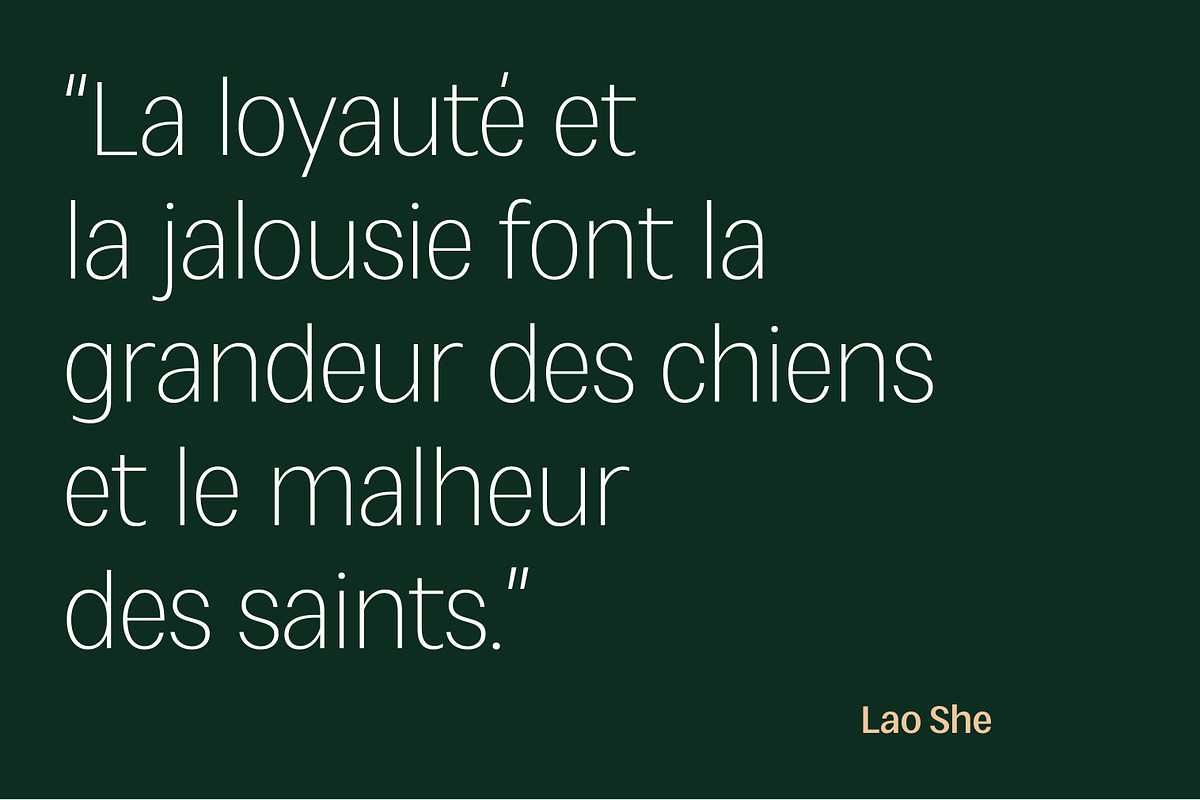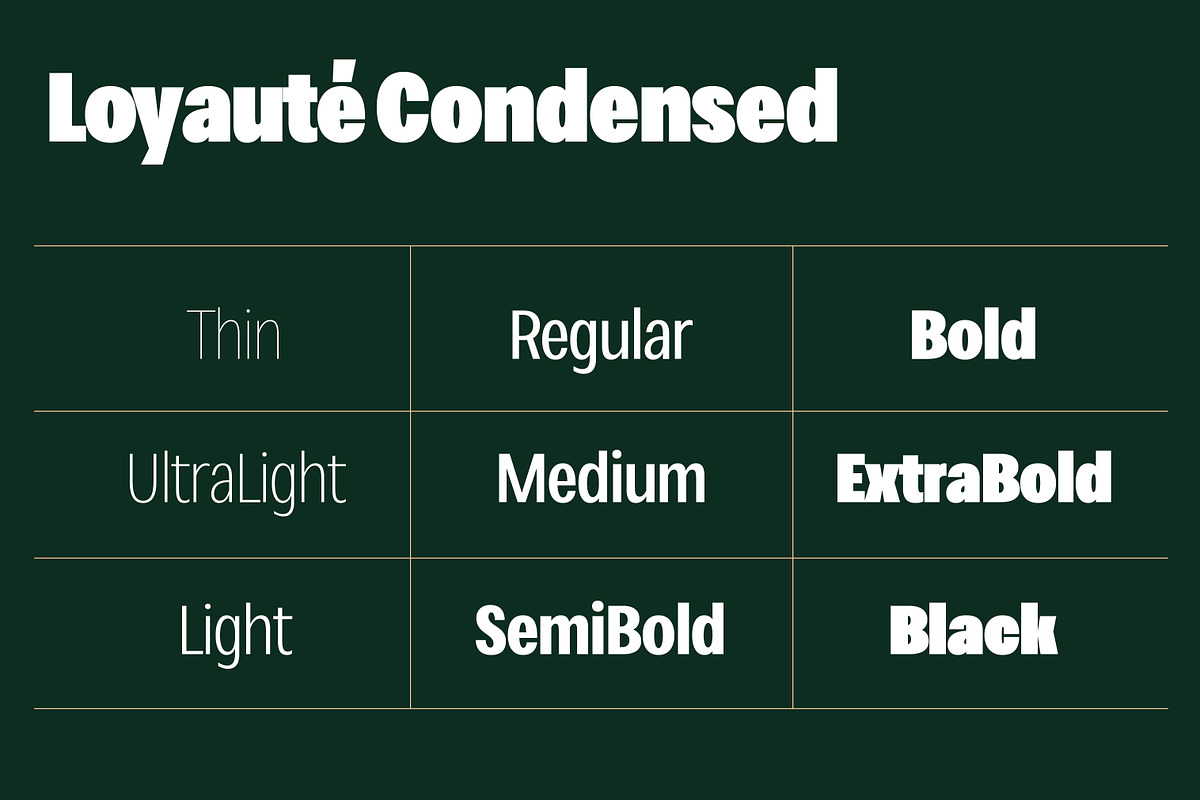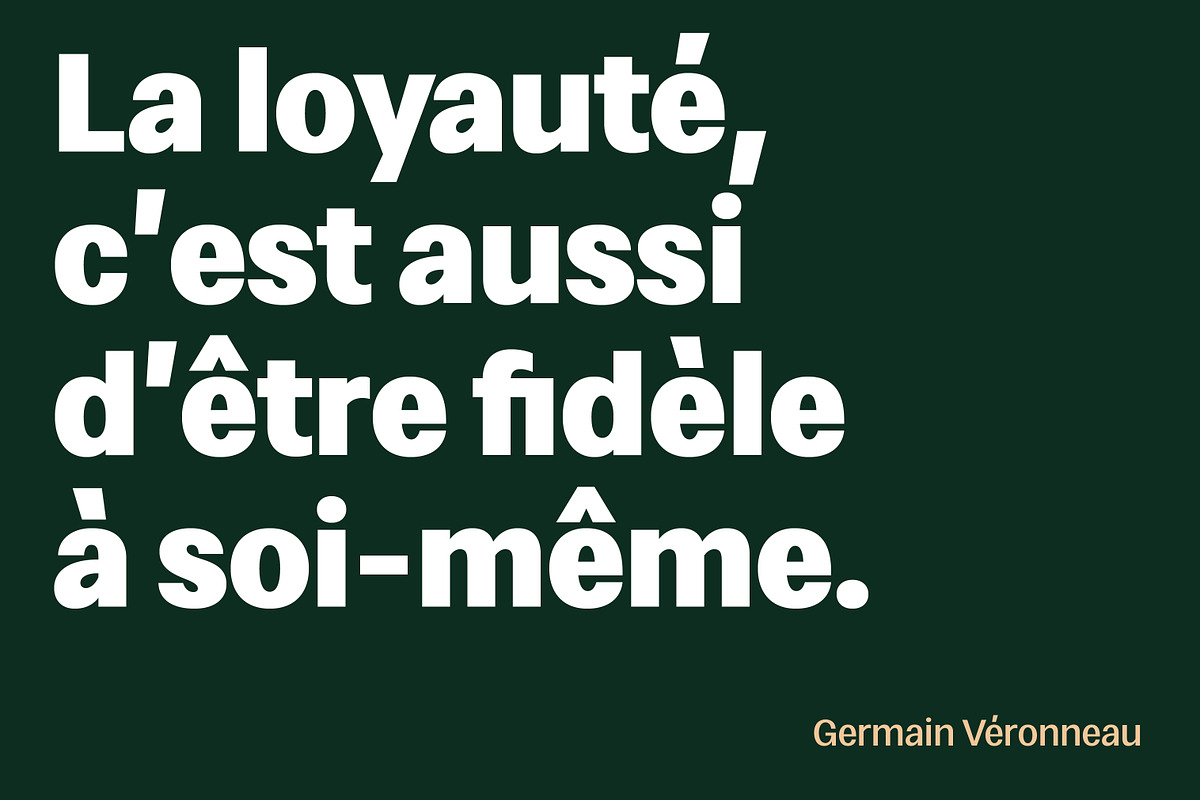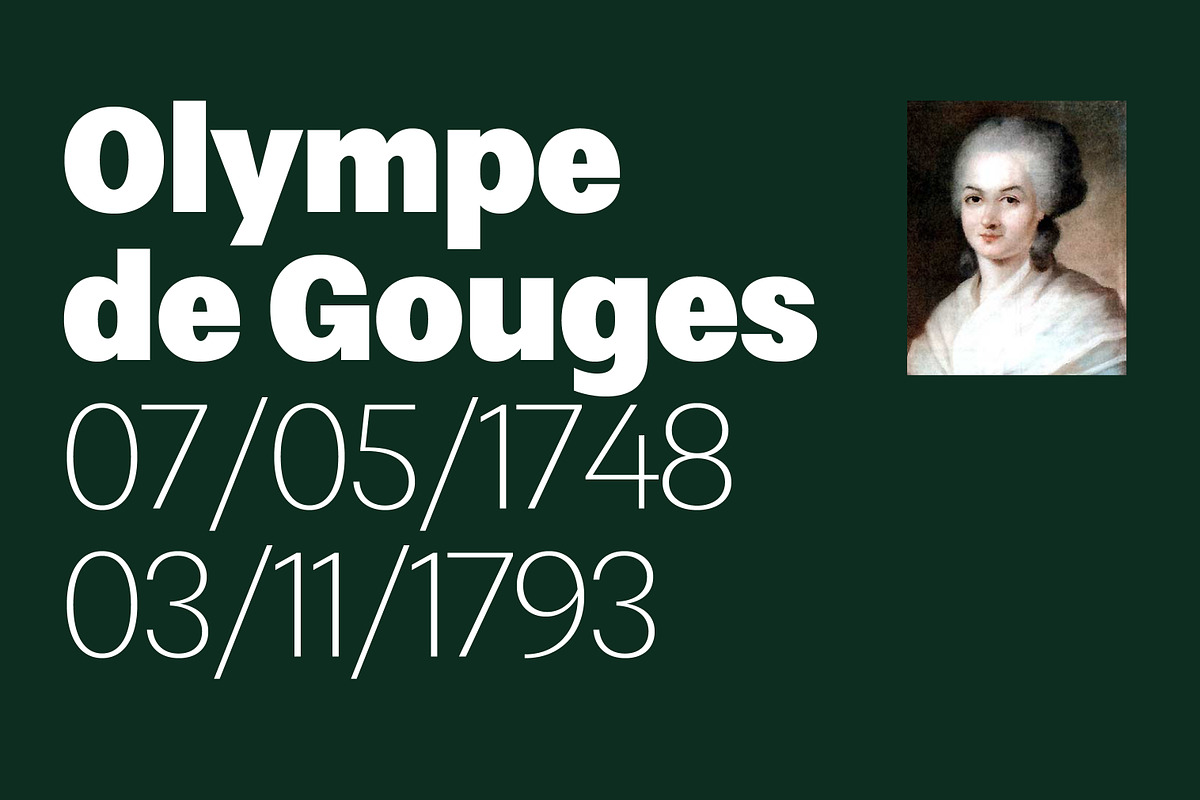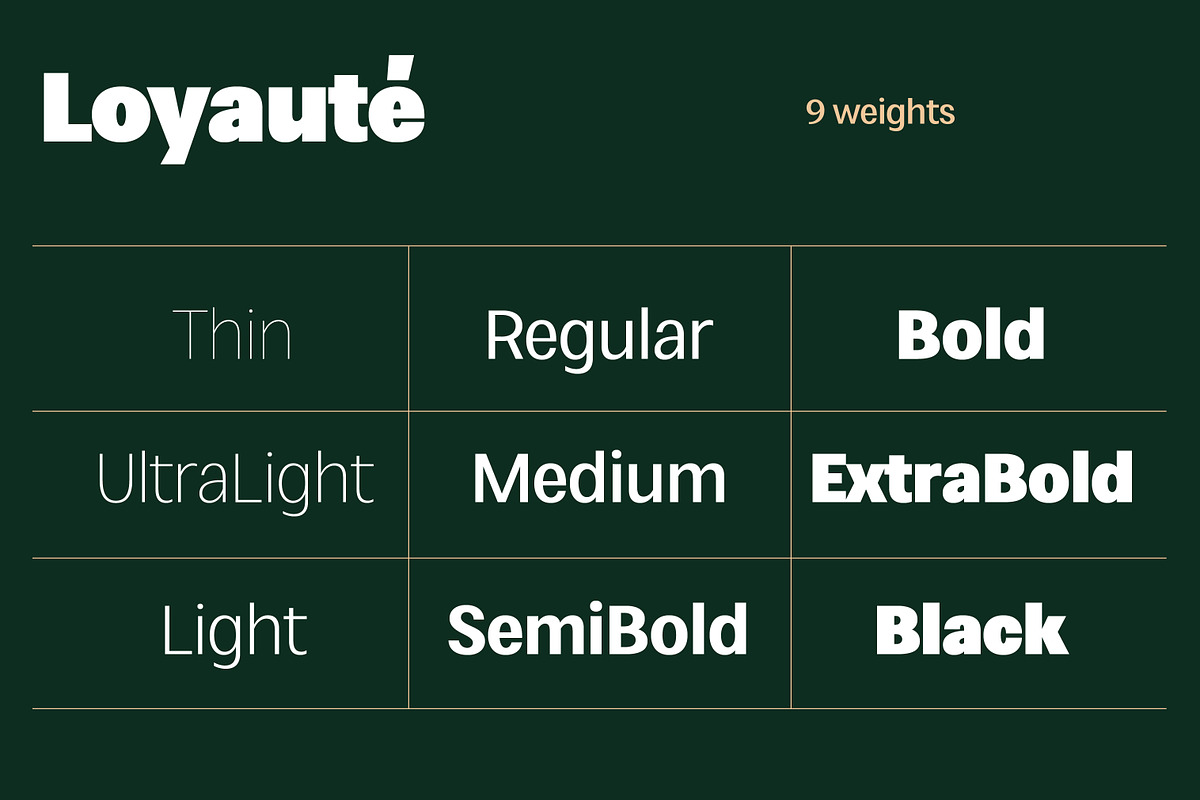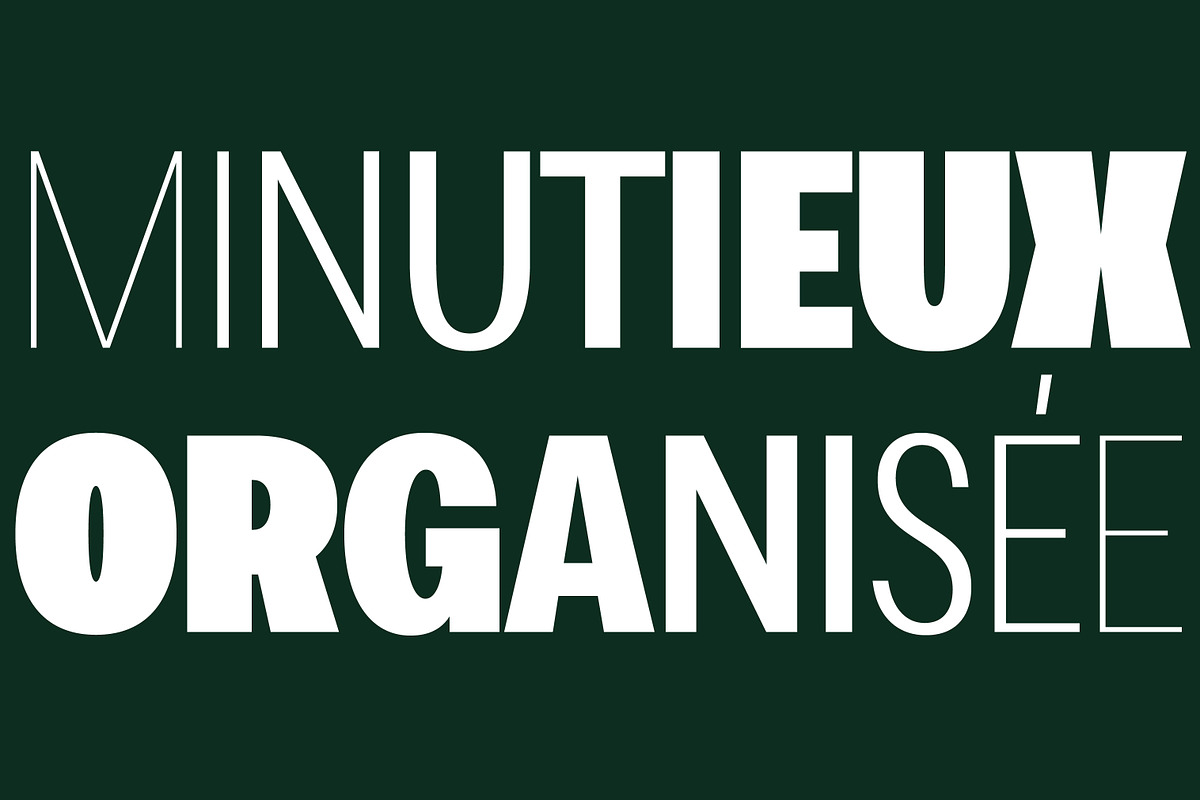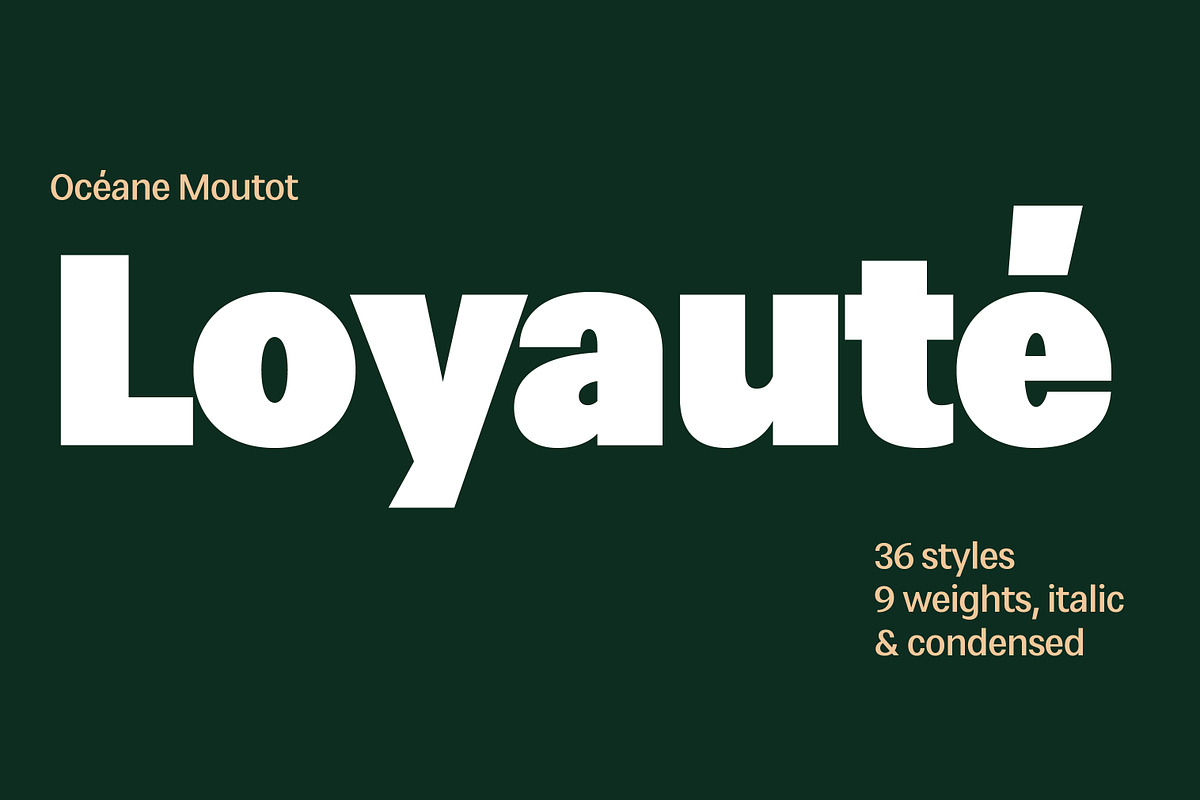
Loyauté
Loyauté is a contemporary sans serif built on the idea of quiet strength and lasting character. Bold yet controlled, expressive yet dependable, it balances authority with approachability — a typeface designed to stand firm without shouting.
Its structure is clean and confident, with solid proportions and carefully shaped curves that give the design both stability and warmth. Loyauté performs just as well in powerful headlines as it does in structured editorial systems and visual identities. There’s a sense of rhythm in the spacing and a clarity in the forms that make it highly legible, even at demanding sizes and layouts.
The family is extensive and versatile, offering 36 styles across 9 weights, each with matching italics and condensed versions. This broad range allows designers to build strong hierarchies, subtle contrasts, and consistent brand voices within a single typographic system.
Loyauté is particularly suited for branding, packaging, posters, publishing, and digital interfaces where a voice of confidence, clarity, and modernity is needed. It brings personality without excess, structure without rigidity — a loyal typographic partner for contemporary design.